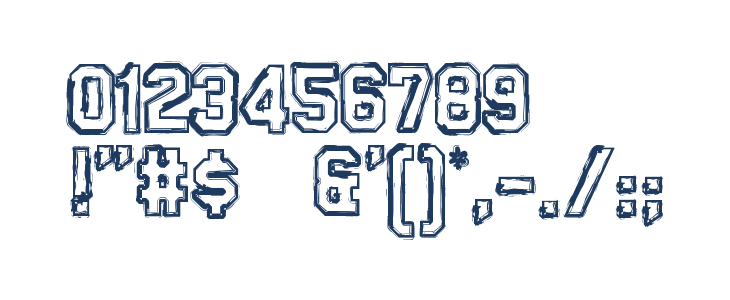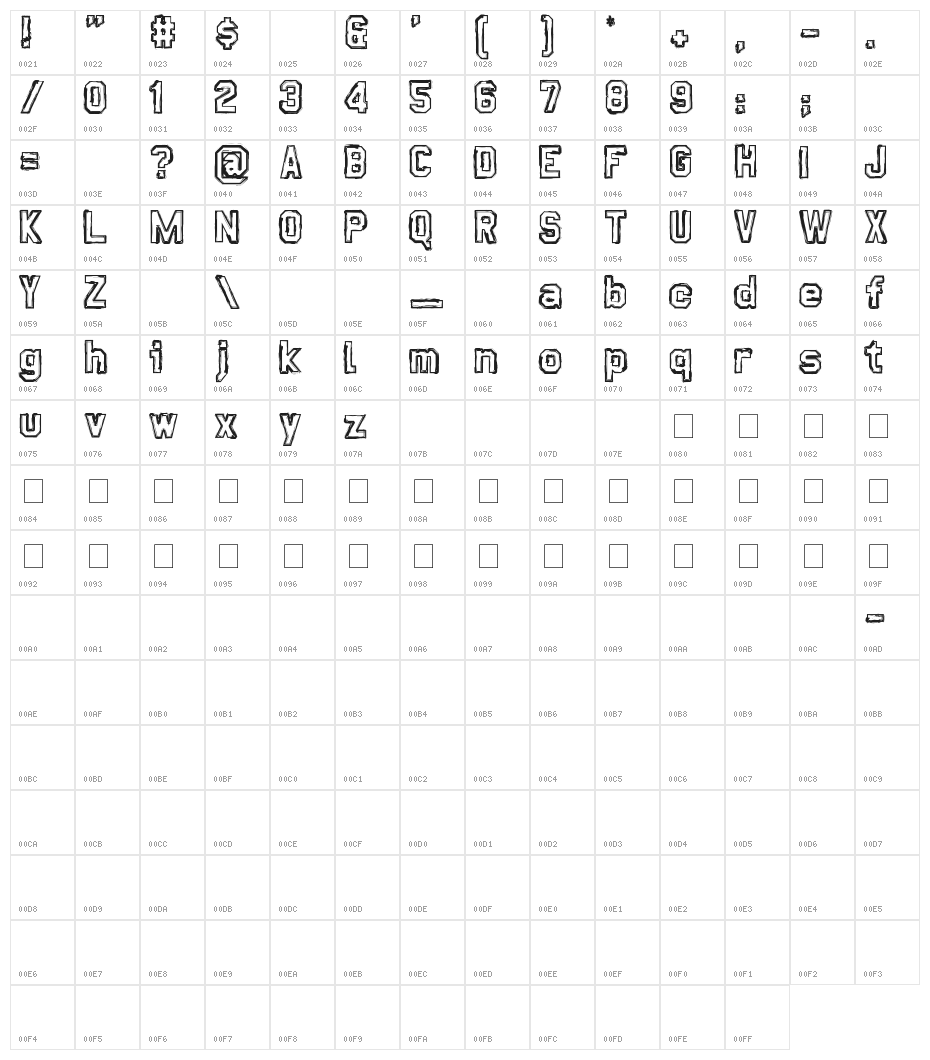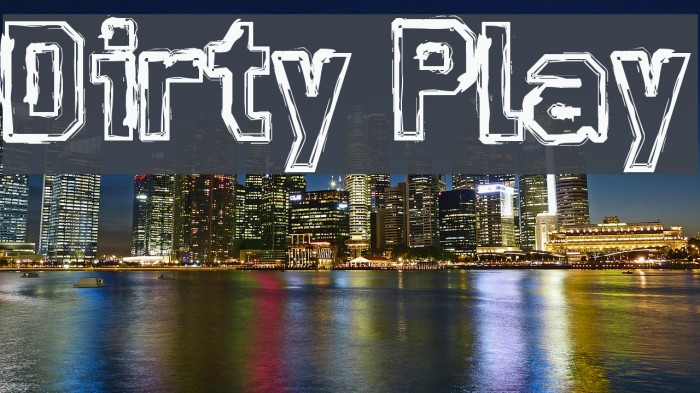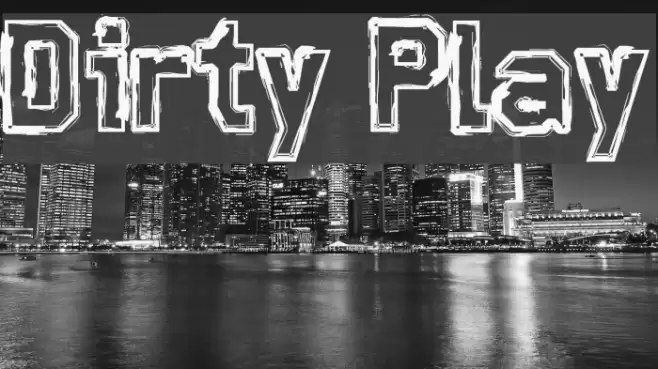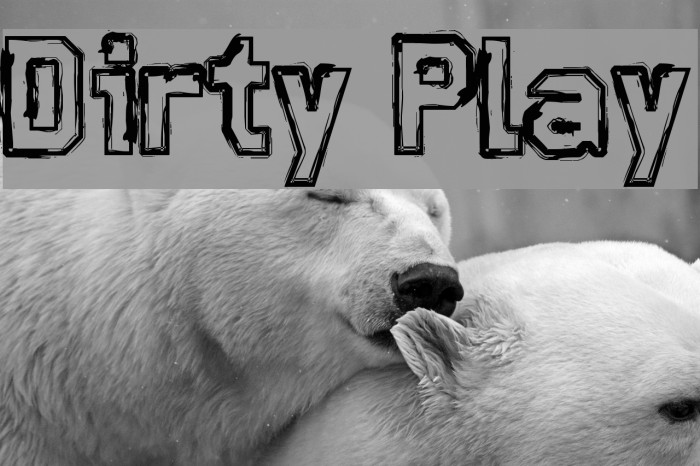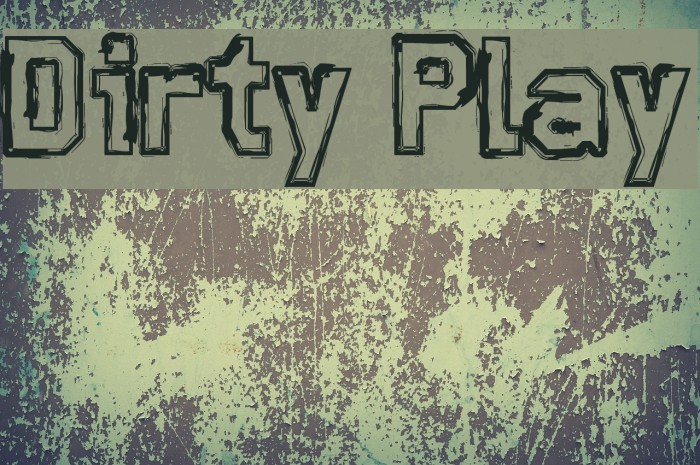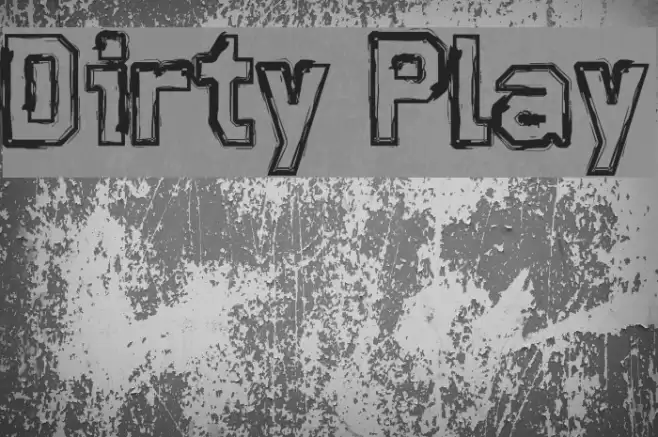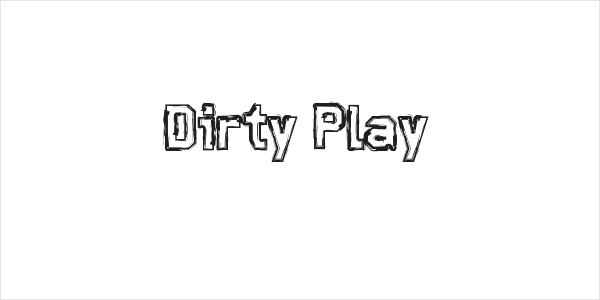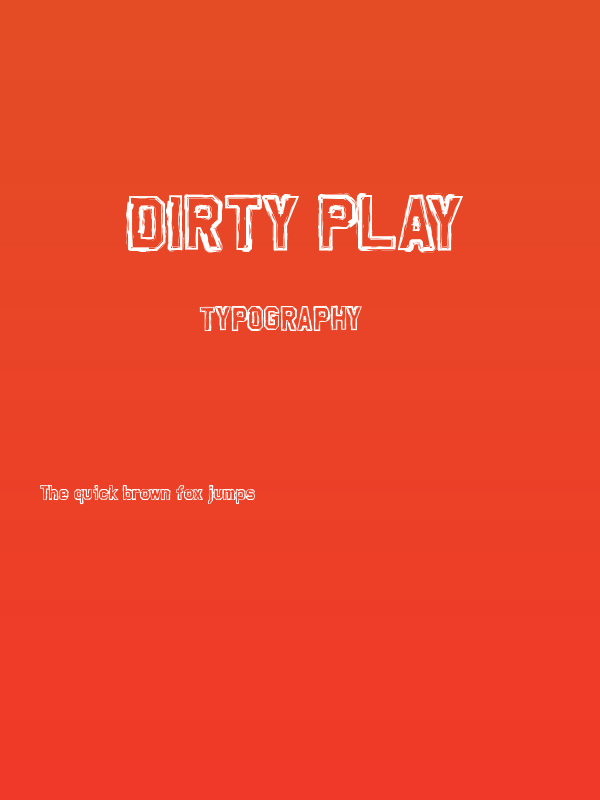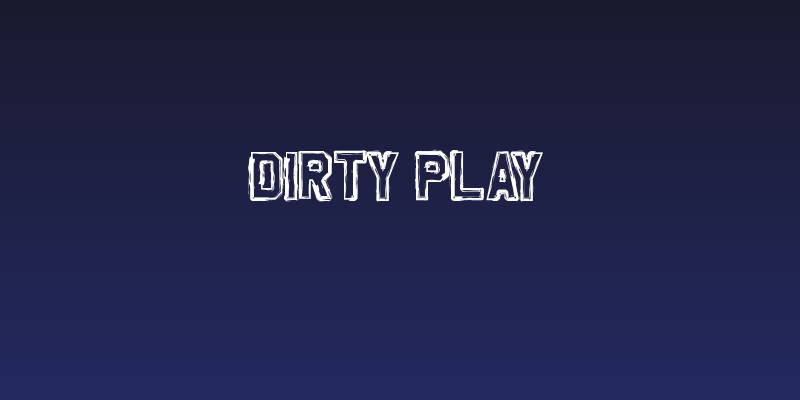
Dirty Play Font
Dirty Play Description
This font features a rugged, distressed style with a bold, hand-drawn appearance. Each character is outlined with a rough, sketch-like texture, giving it a unique, edgy look. The uppercase and lowercase letters maintain a consistent width, while the numbers and special characters follow the same design ethos, ensuring uniformity across all glyphs. The font's irregular edges and bold strokes create a sense of movement and energy, making it ideal for projects that require a dynamic and unconventional aesthetic.
DIRTY-PLAY UPPERCASE
DIRTY-PLAY LOWERCASE
DIRTY-PLAY OTHER CHARS